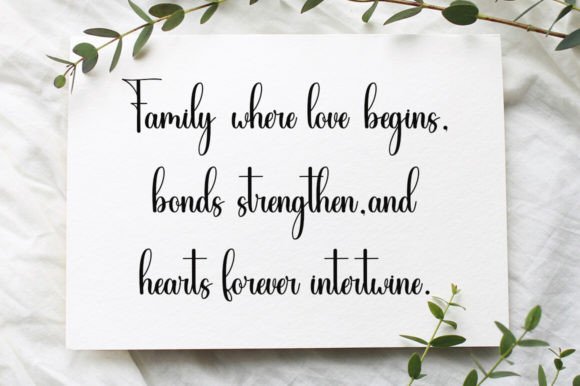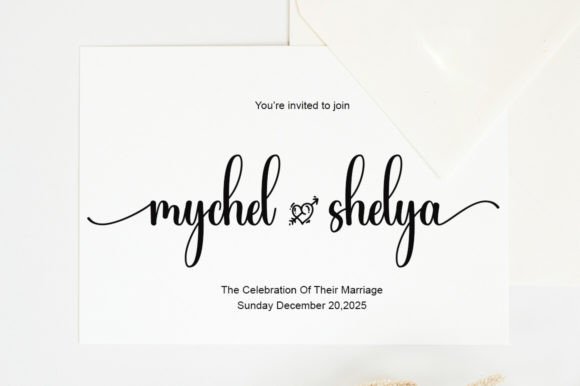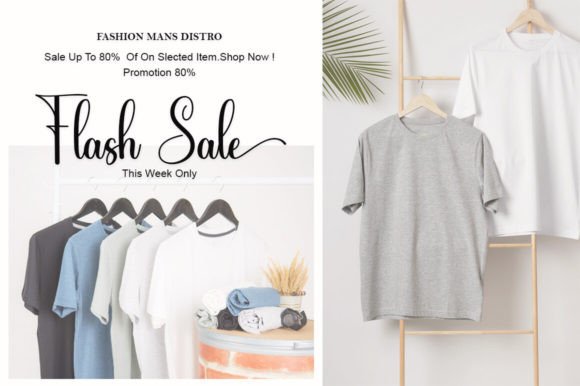
Introduction to Randy Signature Font
Randy Signature is a romantic and sweet handwritten typeface with characters that dance along the baseline.
It will add a luxury spark to any design project that you wish to create This font is PUA encoded which means you can access all of the amazing glyphs and ligatures with ease.
Key Features of Randy Signature Font
Why Choose Randy Signature Font?
Randy Signature Font offers exceptional quality and versatility, making it a valuable addition to your design toolkit. Whether you’re creating for personal projects or commercial use, Randy Signature Font delivers professional results.